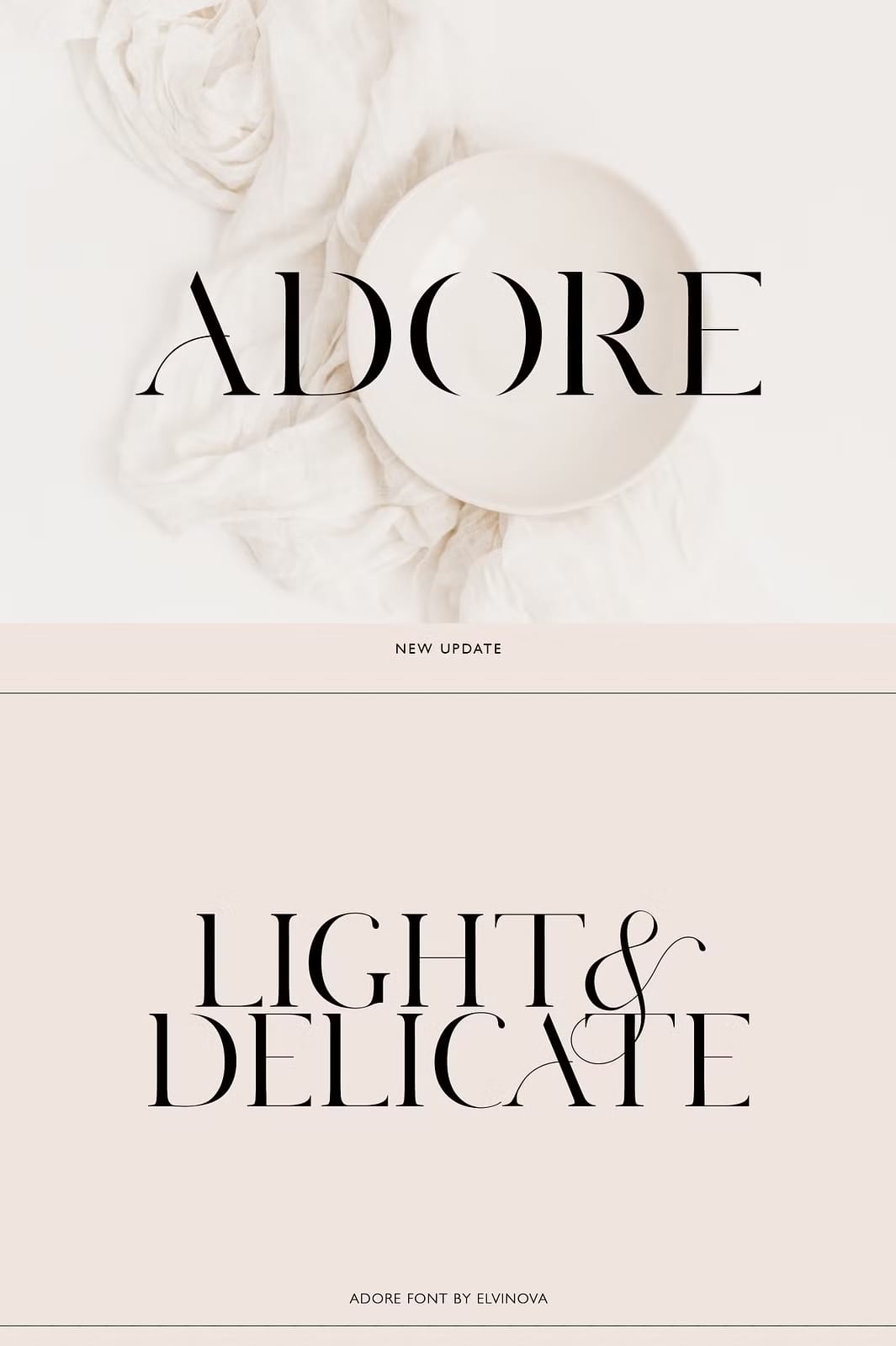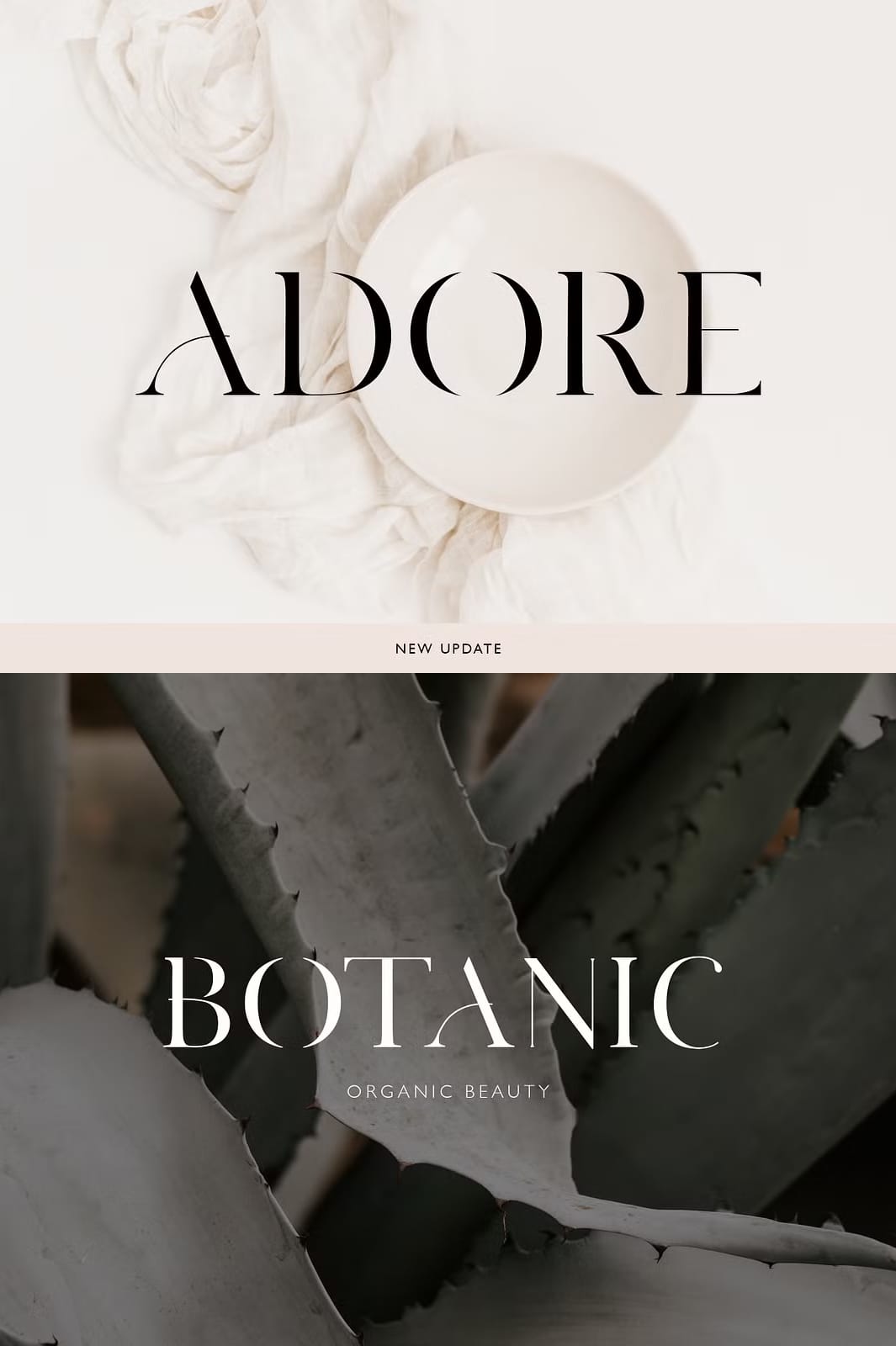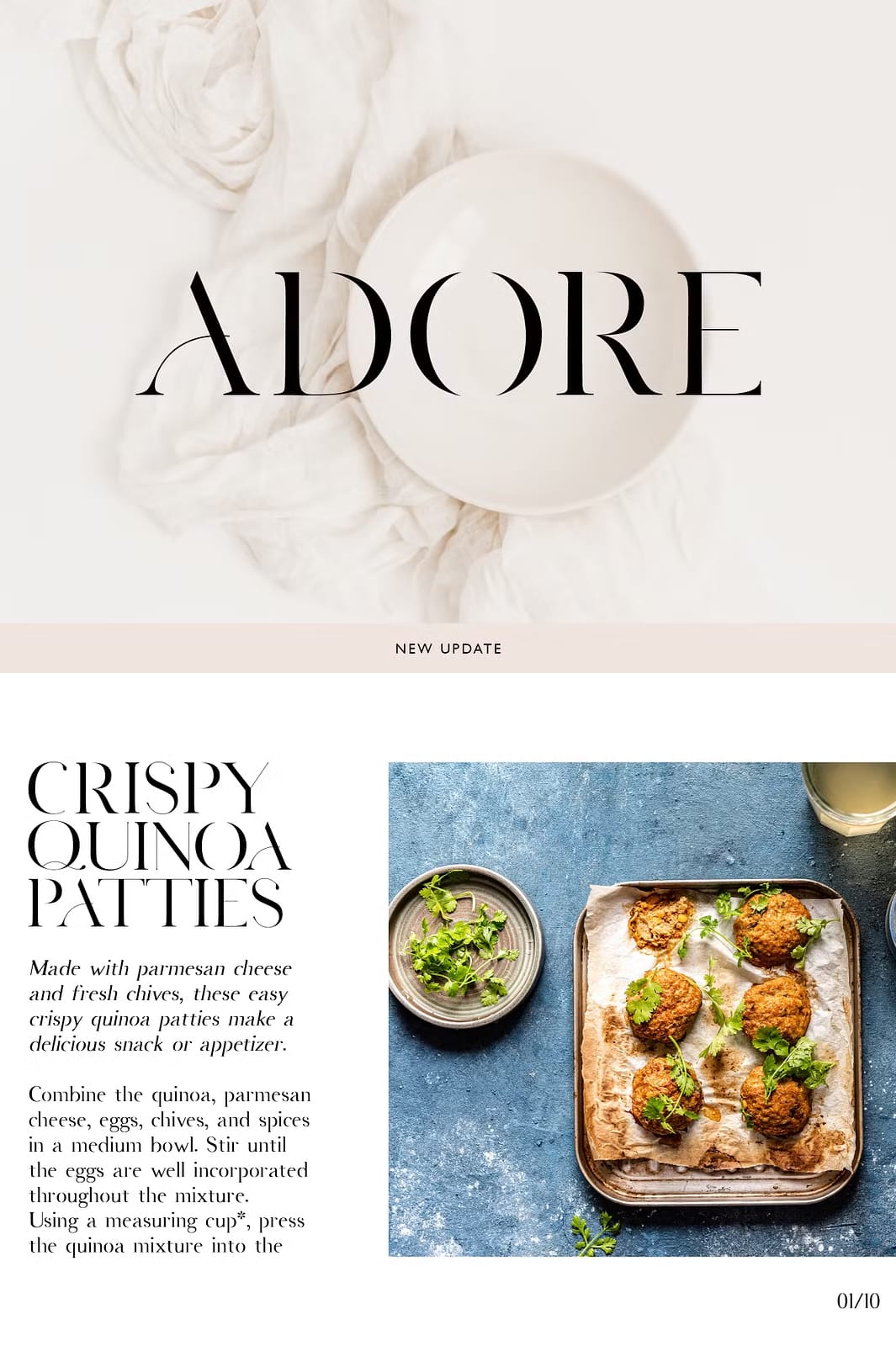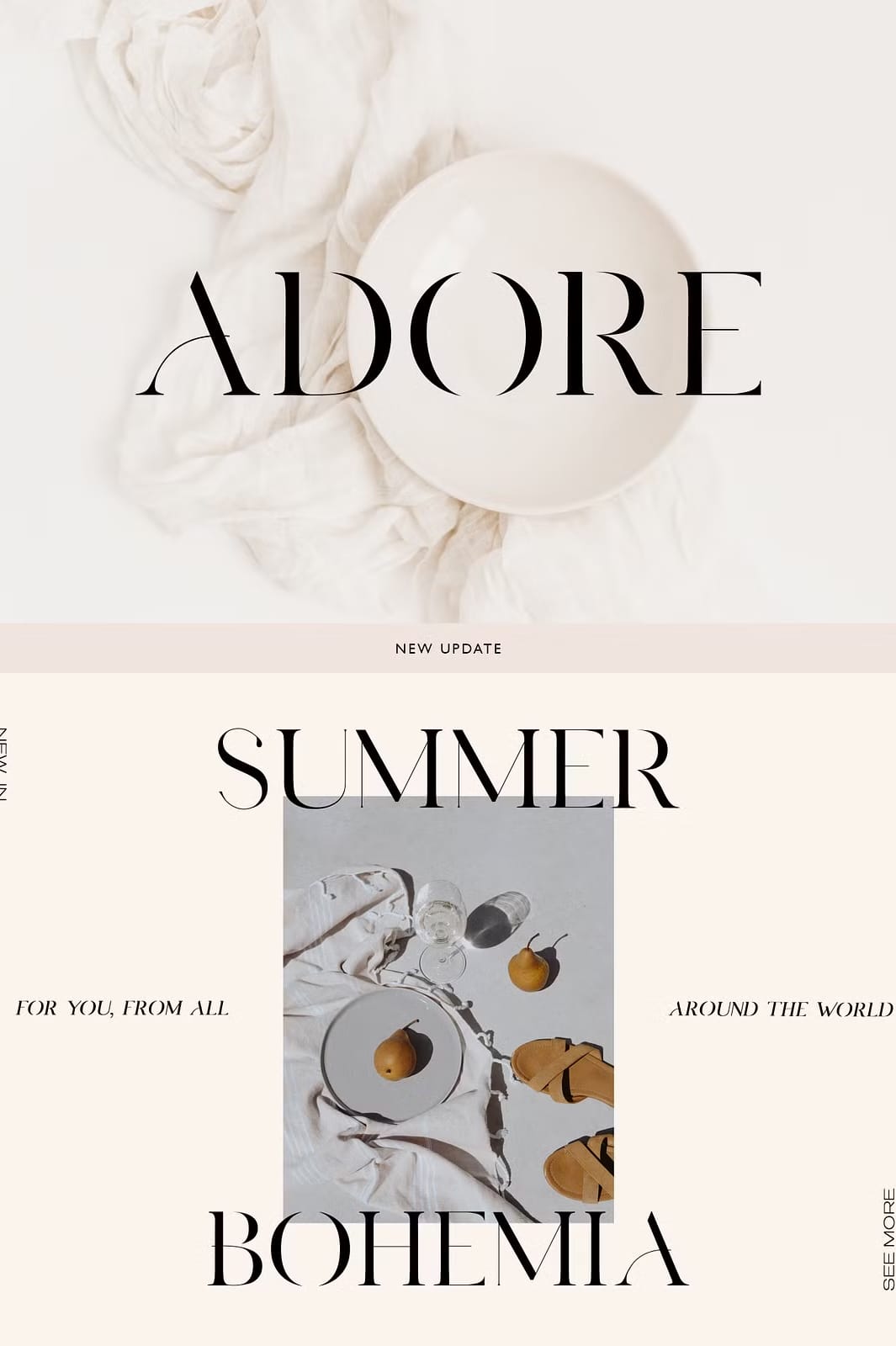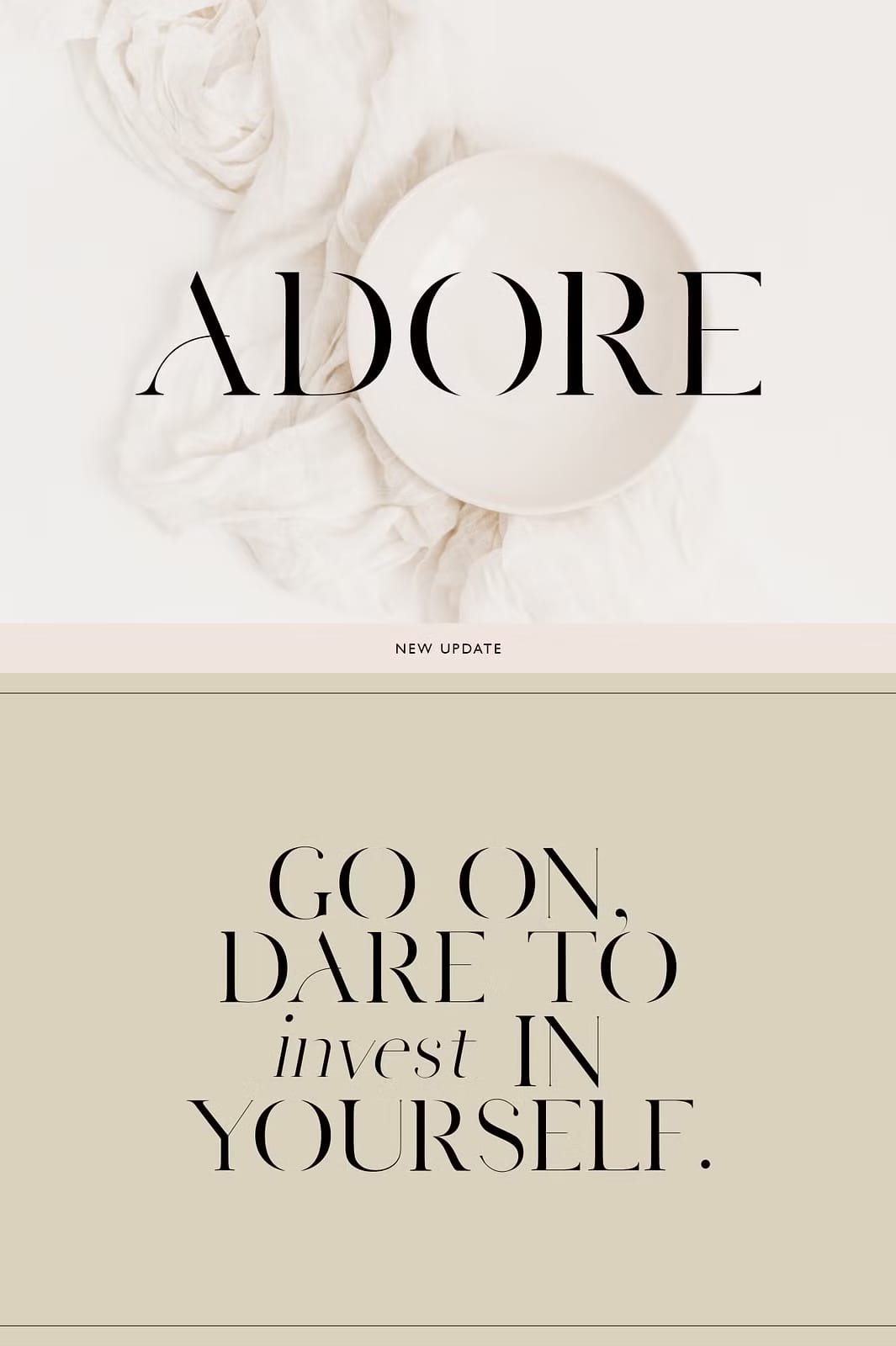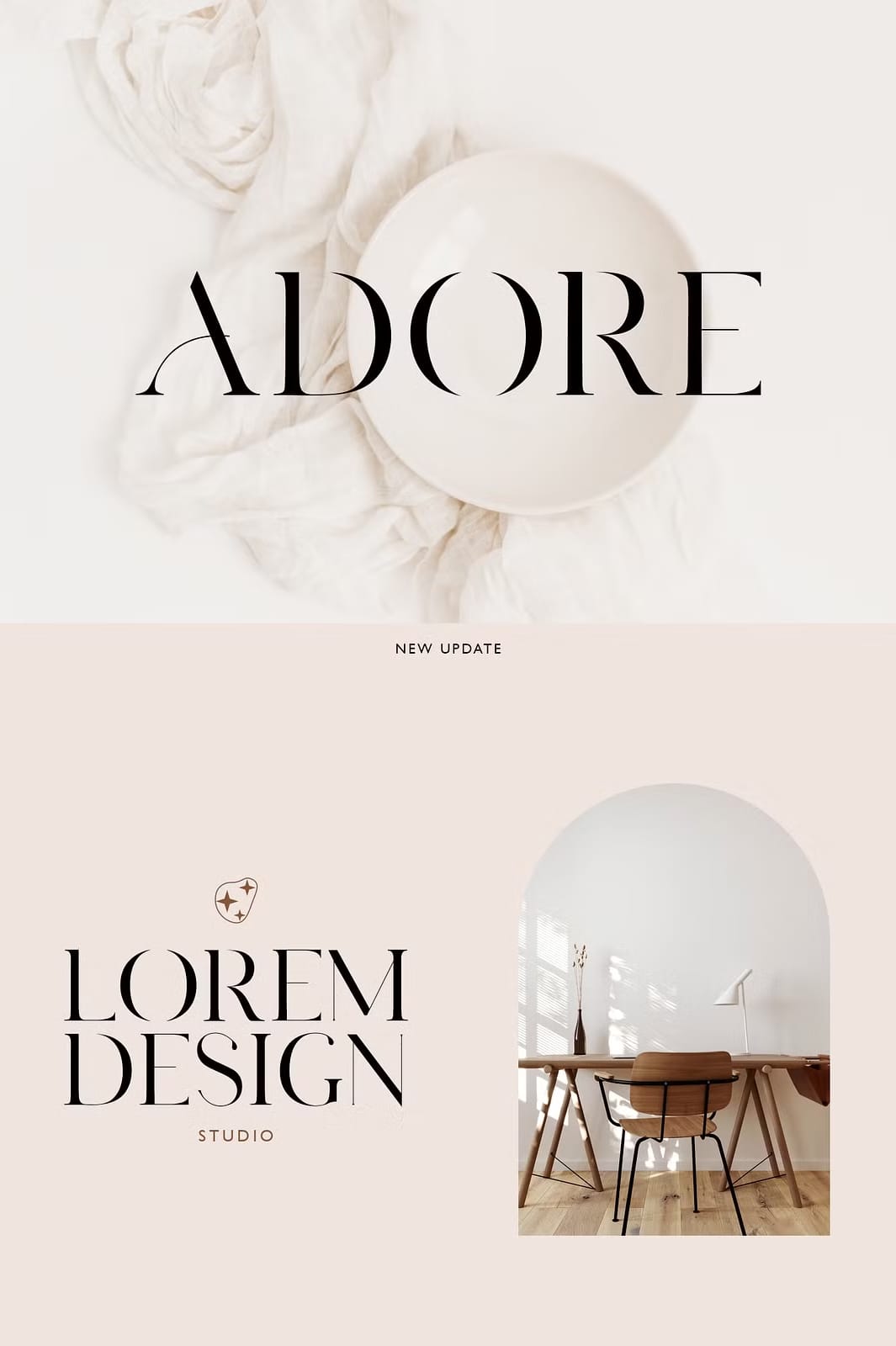
Adore Modern Serif Font
Introducing Adore – A Sophisticated Typeface for Contemporary Branding
Adore is a refined serif typeface designed to bring elegance and modernity to your creative projects. With its delicate details and neat structure, Adore enhances the visual appeal of any brand, making it an excellent choice for designers seeking a fashionable and polished look. Whether you are working on logos, editorial layouts, packaging, or digital content, Adore’s versatile style adapts seamlessly to elevate your designs.
Comprehensive Font Styles and Formats
The Adore font family offers a wide range of styles to suit diverse design needs. It includes:
• Regular – Classic and clean, perfect for body text and general use.
• Italic – Adds emphasis and elegance with a graceful slant.
• Bold – Strong and impactful for headlines and standout text.
• Alternate – Provides stylistic variations to customize your typography.
• Condensed – Space-saving style ideal for tight layouts and modern designs.
Adore supports uppercase and lowercase letters, numbers, and punctuation, ensuring comprehensive typographic coverage for your projects.
Why Choose Adore for Your Design Projects?
Adore’s elegant serif design combines delicate detailing with a modern aesthetic, making it a versatile choice for brands that want to convey sophistication and style. Its neat and balanced letterforms enhance readability while adding a touch of refinement. Whether you are creating a luxury brand identity, editorial content, or stylish packaging, Adore provides the perfect typographic foundation.